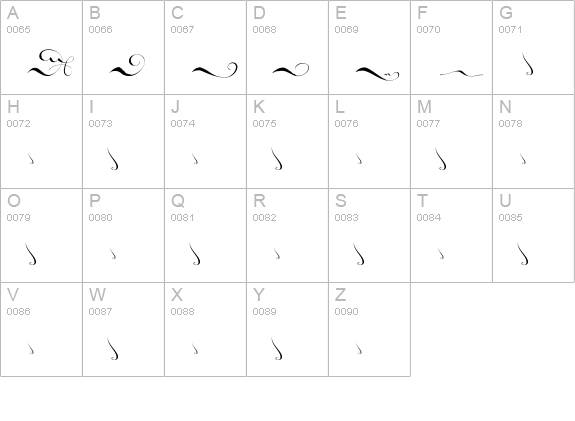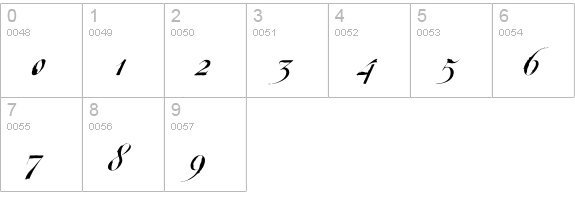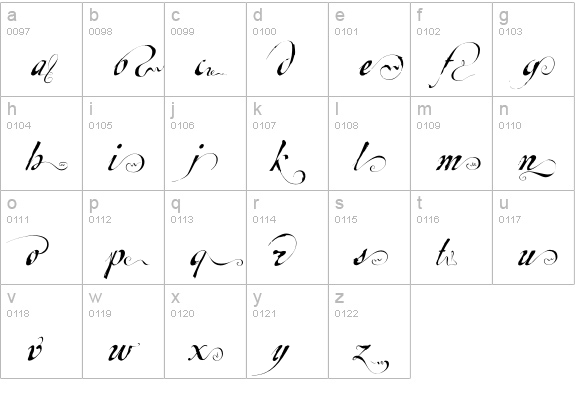
Escrita-Final Font Details
The Escrita-Final font is a stunning display typeface that exudes elegance and sophistication. With its unique letterforms and stylish curves, this font is sure to make a statement in any design project. Whether you're creating a logo, poster, or branding materials, Escrita-Final will add a touch of class and professionalism. What sets Escrita-Final apart is not only its exceptional design but also the fact that it is available for free download at FontsMarket.com. This means that you can easily access this premium font without any cost, making it a valuable addition to your font collection. Experience the beauty and versatility of Escrita-Final font today and elevate your designs to the next level. Download this exquisite typeface for free and unlock a world of design possibilities.